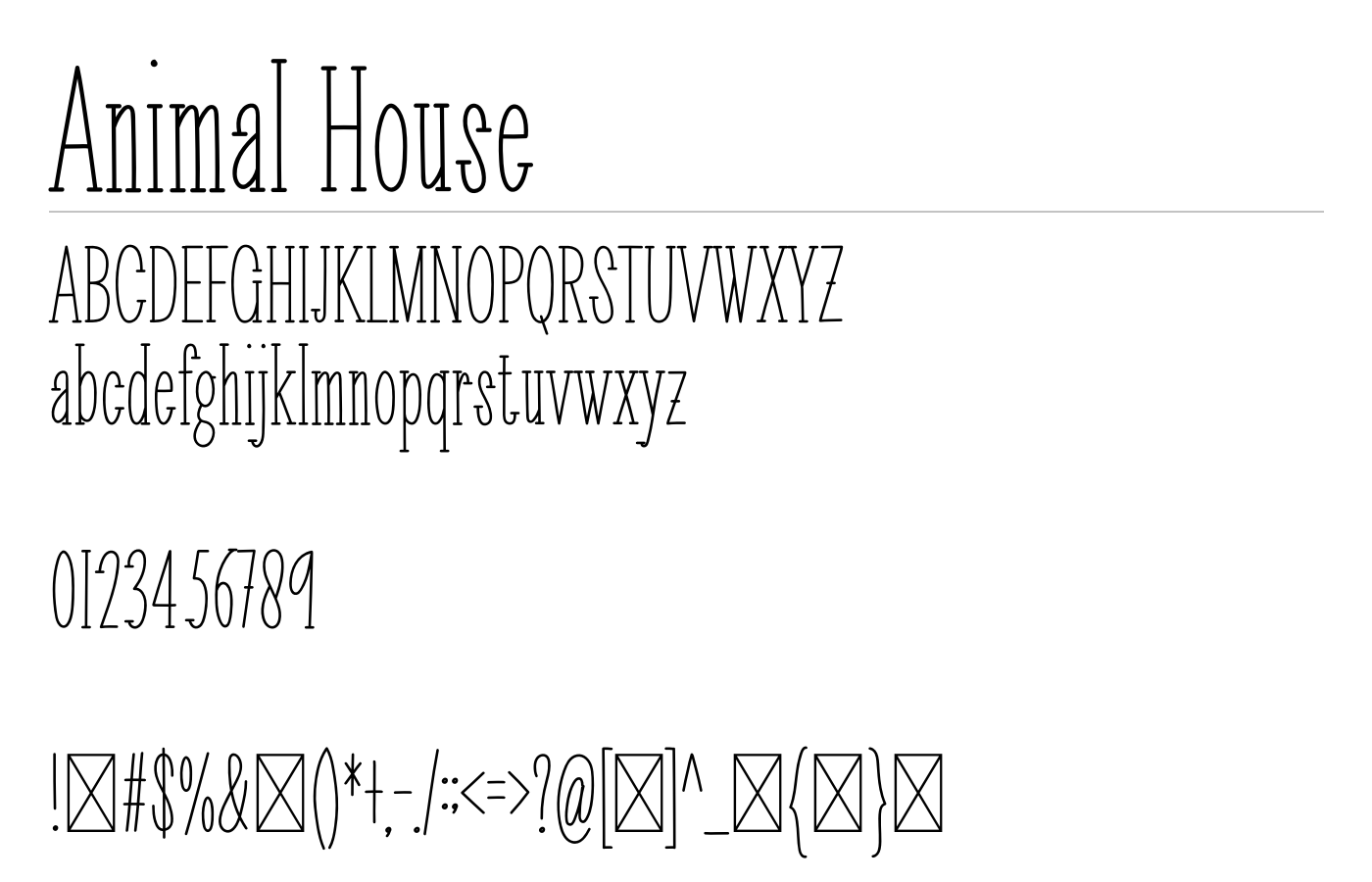
Animal House is a tall, narrow serif font with a playful and quirky personality. Its thin strokes and subtle variations give it a delicate, vintage feel, making it ideal for creative branding or headlines that need a distinctive, whimsical touch. This font works well in projects seeking a lighthearted yet elegant appearance, such as posters, invitations, or unique editorial designs.
Animal House Font